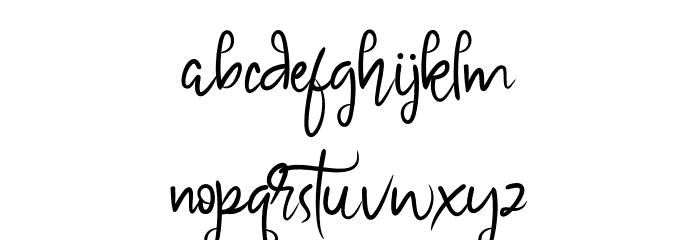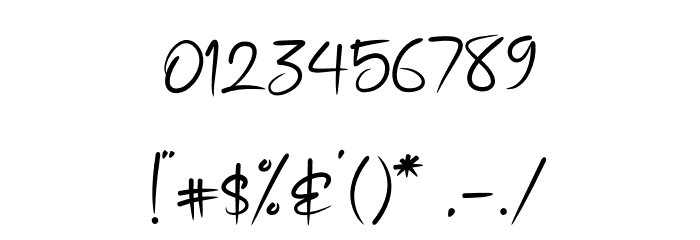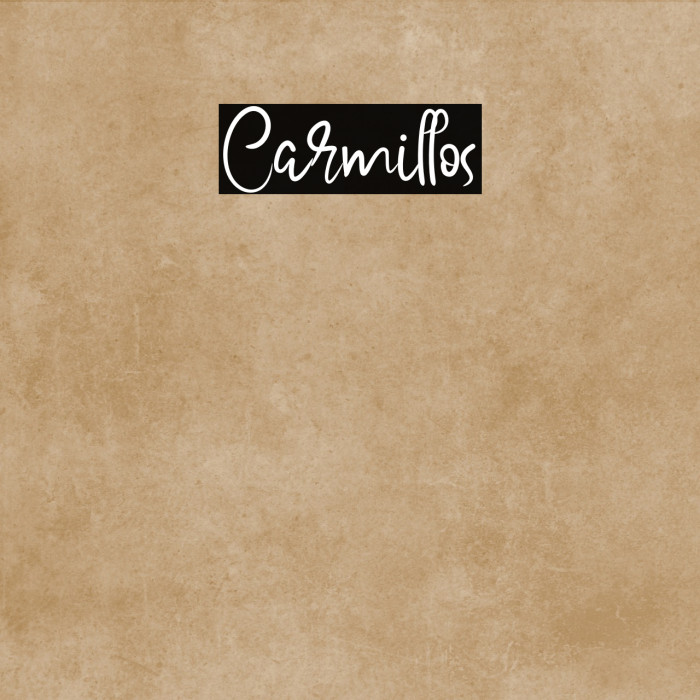
Carmillos Font
This font is a lively and expressive script with a handwritten feel. The characters are elegantly curved, featuring a playful and artistic flair. The uppercase letters are bold and prominent, while the lowercase letters maintain a fluid and connected style. The numerals are consistent with the overall design, offering a cohesive look. Special characters are creatively integrated, enhancing the font's versatility. The strokes vary in thickness, adding a dynamic contrast that emphasizes its decorative nature.
A lively, expressive script font with a handwritten feel and dynamic contrast.